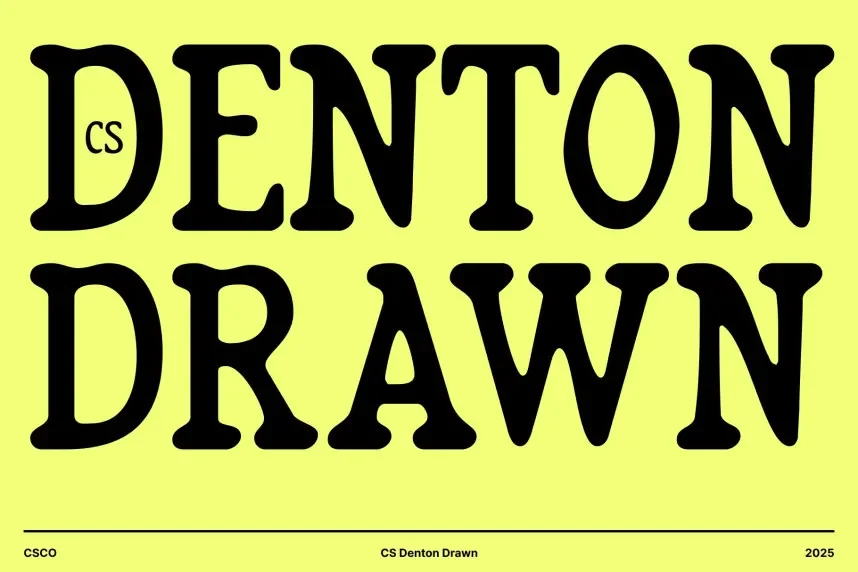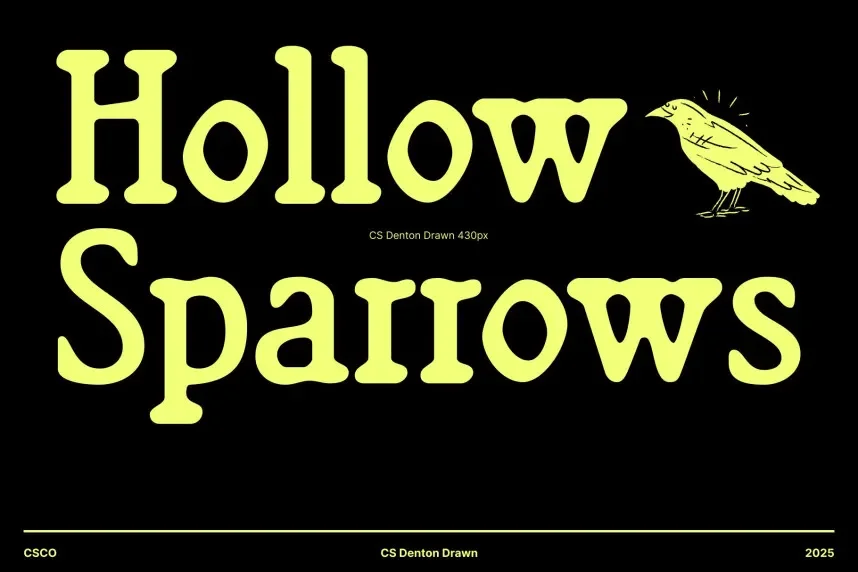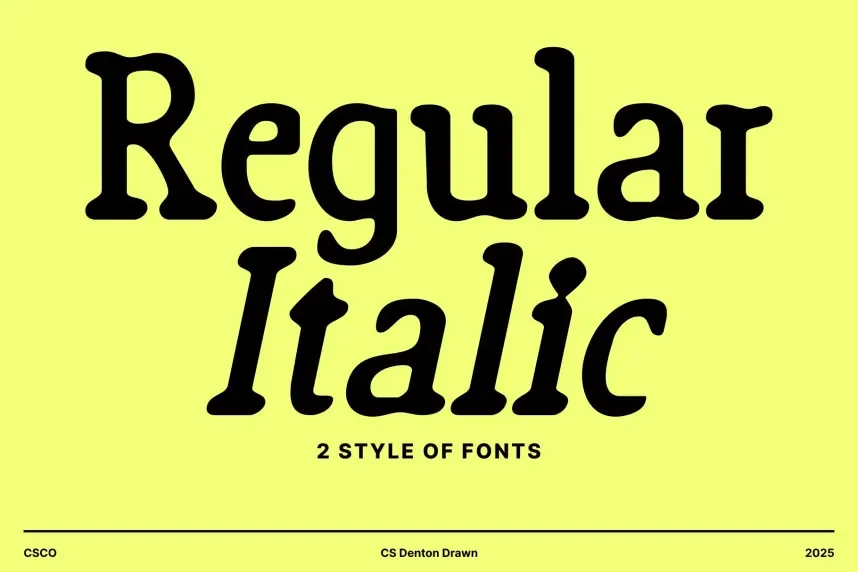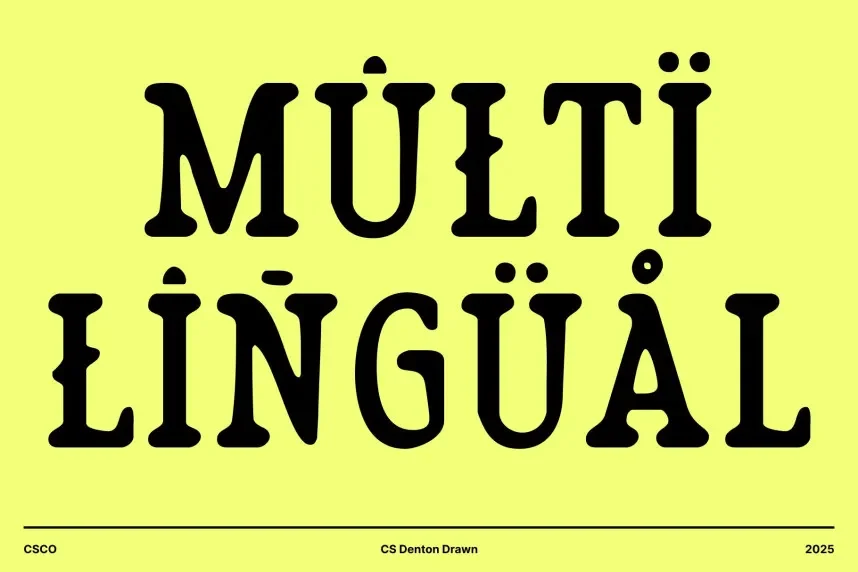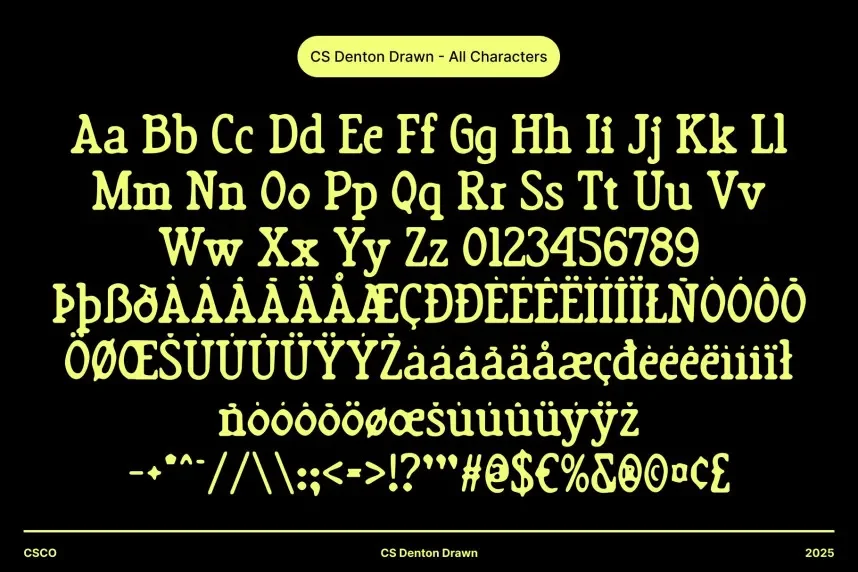
CS Denton Drawn Font addresses the need for a bold, expressive font that adds a hand-drawn style to designs while maintaining visual impact. Perfect for projects where you want to grab attention.
CS Denton is a display font featuring thick, bold strokes with rough edges. The hand-drawn texture gives the font an organic, earthy feel that makes it stand out in larger text.